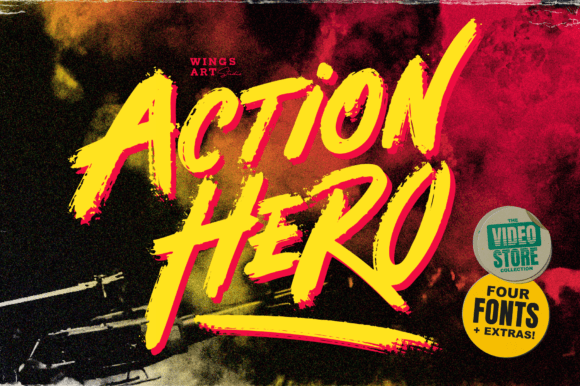
Looking for the perfect font for your next action-packed project? Look no further than Action Hero Font! Created by wingsart, this grungy, textured brush font is the ideal choice for movie posters and titles. With its hand-drawn style, inspired by the action movie posters of the 1980s and 90s, Action Hero Font is sure to capture the attention of your audience.
Action Hero Font is the best font for poster board, especially if your project involves high-octane, heart-pumping action. Whether your movie features a hostage situation on a speeding bus or train, a one-man army rescuing stranded POWs, or a post-apocalyptic race across the desert, Action Hero Font is the perfect choice.
One of the most frustrating things about hand-drawn fonts is having to repeat characters. But with the Action Hero font family, you'll never have to worry about that again! This font family includes many creative options, allowing you to achieve authentic hand-drawn-looking title designs without ever repeating characters.
But what really sets Action Hero Font apart is its ability to capture the essence of an action-packed movie in every letter. With its grungy, textured brush style, this font looks like it was ripped straight from the pages of a comic book. And with countless creative options, you'll be able to create truly unique designs that explode off the screen.